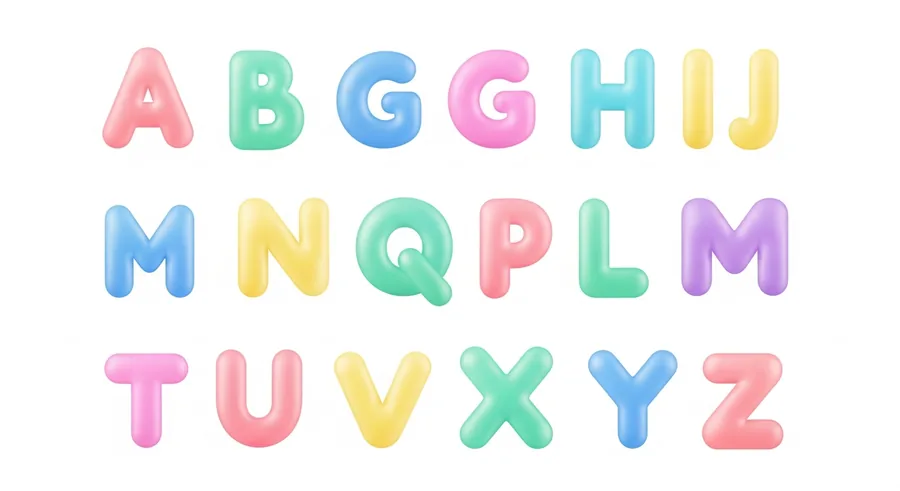
What Are Bubble Letters?
Bubble letters are a style of text where characters appear rounded, inflated, or enclosed in circles β giving them a playful, bold, attention-grabbing look. In the context of Unicode text generators, there are two main types of "bubble" text:
- Circled letters β Letters enclosed inside circles: β½ββββ or βββββΉ
- Fullwidth characters β Wide, block-like characters: οΌ¨ο½ ο½ο½ο½ οΌ·ο½ο½ο½ο½
Both are actual Unicode characters that exist in the standard and paste into any app that supports Unicode β which is essentially every major platform.
The Different Bubble Letter Styles
Circled Lowercase (Bubble style)
βββββ β¦ββ‘ββ β Each letter is enclosed in a circle. The lowercase circled alphabet is one of the most recognized "bubble" looks. Playful, bright, and very visible.
Circled Uppercase
β½βΊβββ βββββΉ β The uppercase circled version. Feels bolder and more energetic than the lowercase version.
Negative Circled (Dark bubble)
π π π π π β Some generators include negative circled characters where the letters appear white inside dark circles. This gives a high-contrast badge-like look.
Fullwidth (Wide block letters)
οΌ¨ο½ ο½ο½ο½ β While not "bubbles" per se, fullwidth characters have a wide, blocky aesthetic that creates a similar visual emphasis. Popular in the vaporwave and aesthetic communities.
Where Bubble Text Works Best
Instagram captions and comments
Bubble letters in Instagram comments make your comment stand out from a wall of text. Many people use them for supportive comments like ββ‘βββ£ ββββ£β or attention-grabbing reactions.
Twitter/X posts and bios
Circled letters are very visible in Twitter feeds and make specific words or phrases pop out of a timeline. Some creators use them to highlight key points in longer threads.
Discord usernames and server text
Bubble letter usernames are eye-catching in Discord server member lists and make profiles immediately recognizable.
Tips for Using Bubble Letters
Use them for emphasis, not full sentences
Circled letters are wide and decorative β a full sentence in bubble letters takes up a lot of space and can be hard to read quickly. They work best for short words, names, or key phrases.
Numbers and punctuation
Circled numbers exist in Unicode (β β‘β’) and can be combined with bubble letter text for lists or steps. Some punctuation doesn't have circled equivalents and will appear as regular characters.
Match the tone of your content
Bubble letters have a playful, energetic feel. They work well for celebration posts, fun content, game-related channels, and youth-oriented brands. They would feel out of place in a serious professional context.
Do Bubble Letters Work on Instagram?
Yes. Instagram supports the full Unicode set, and circled letters paste and display correctly in bios, captions, and comments. The same applies to TikTok, Twitter/X, WhatsApp, Discord, Telegram, and Reddit. If an app supports Unicode text (which all major social platforms do), bubble letters will work.